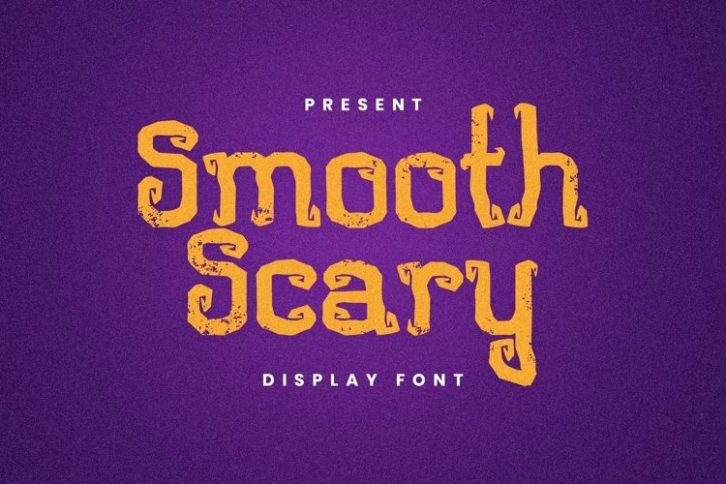
Web Smooth Scary is a trendy and unique font with an authentic style. It was designed by plusstore and it's a great choice for creative people who need such a font. It was released on August 14, 2021 and the file size is 18.22 MB. Web Smooth Scary will add an organic vibe to any design idea!